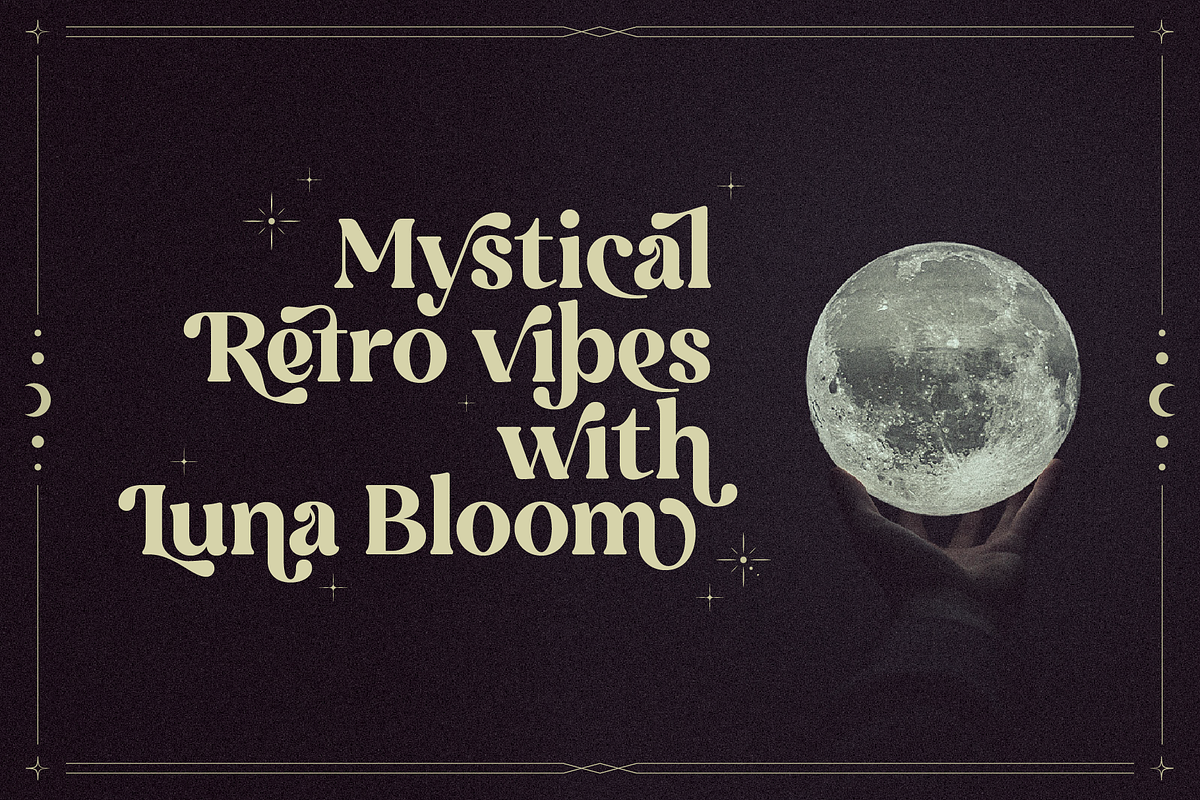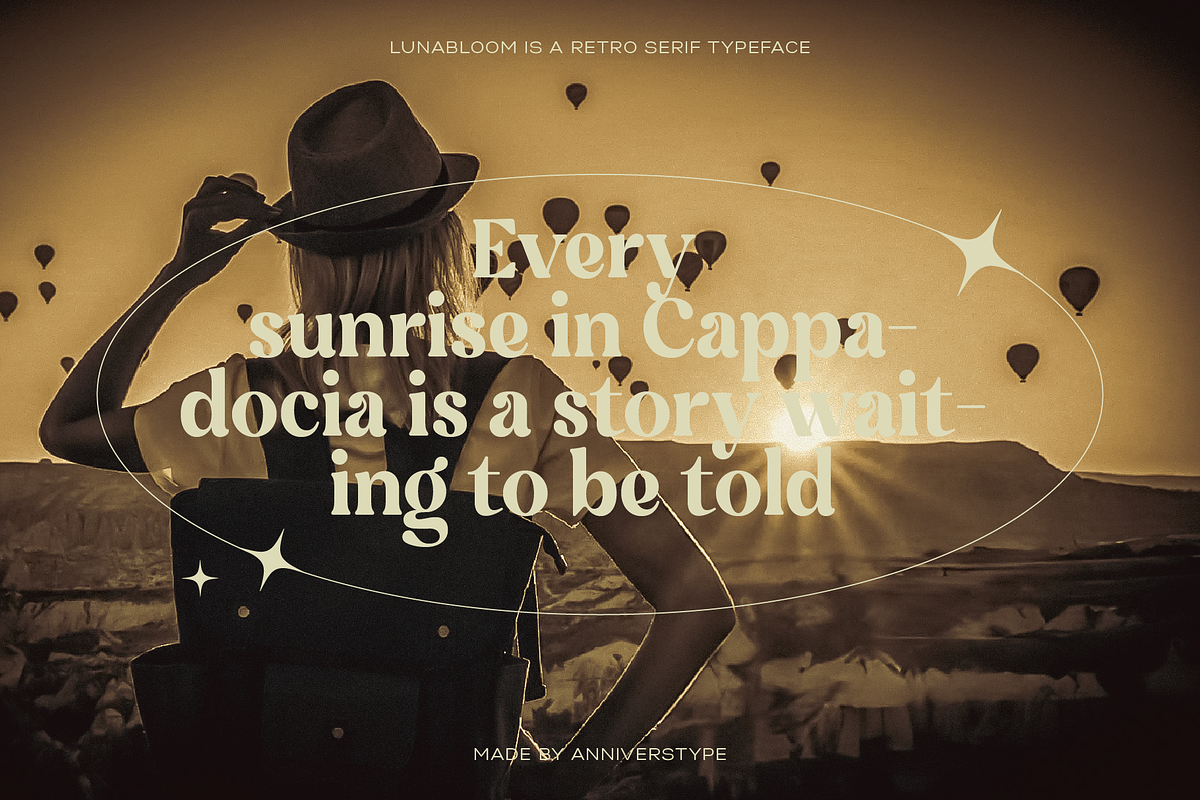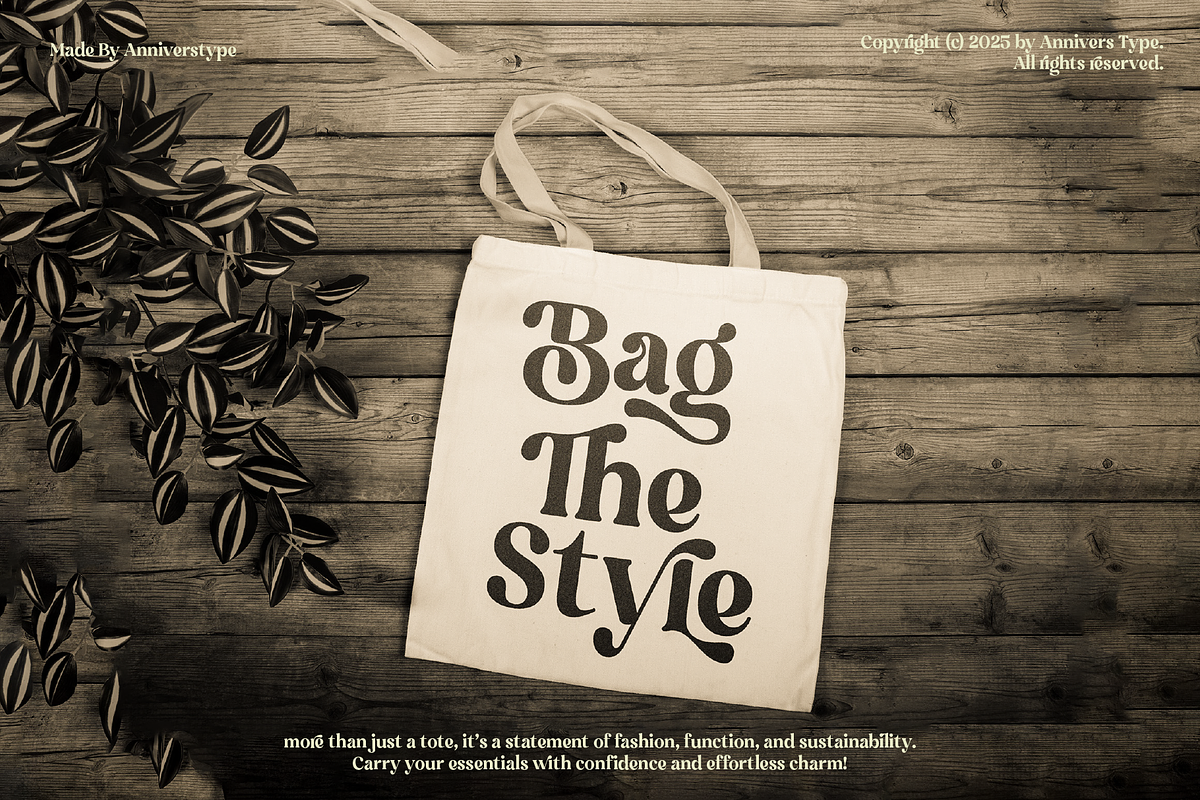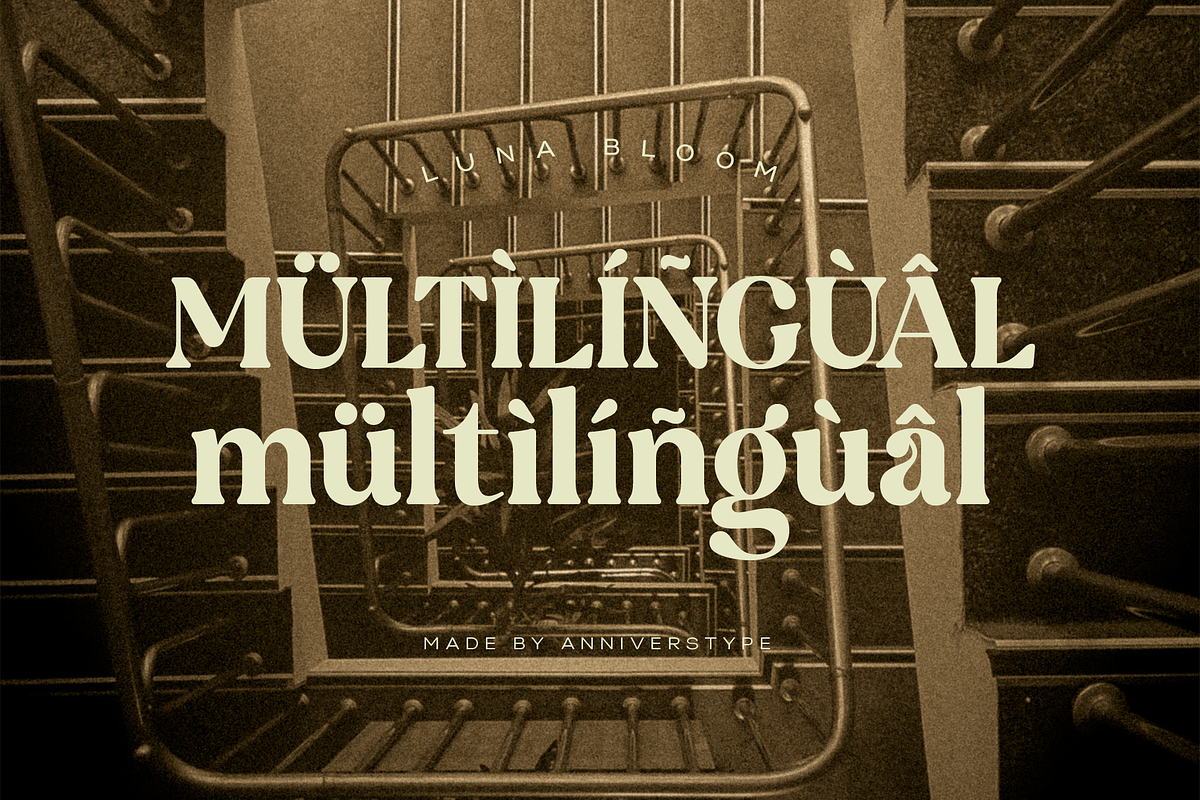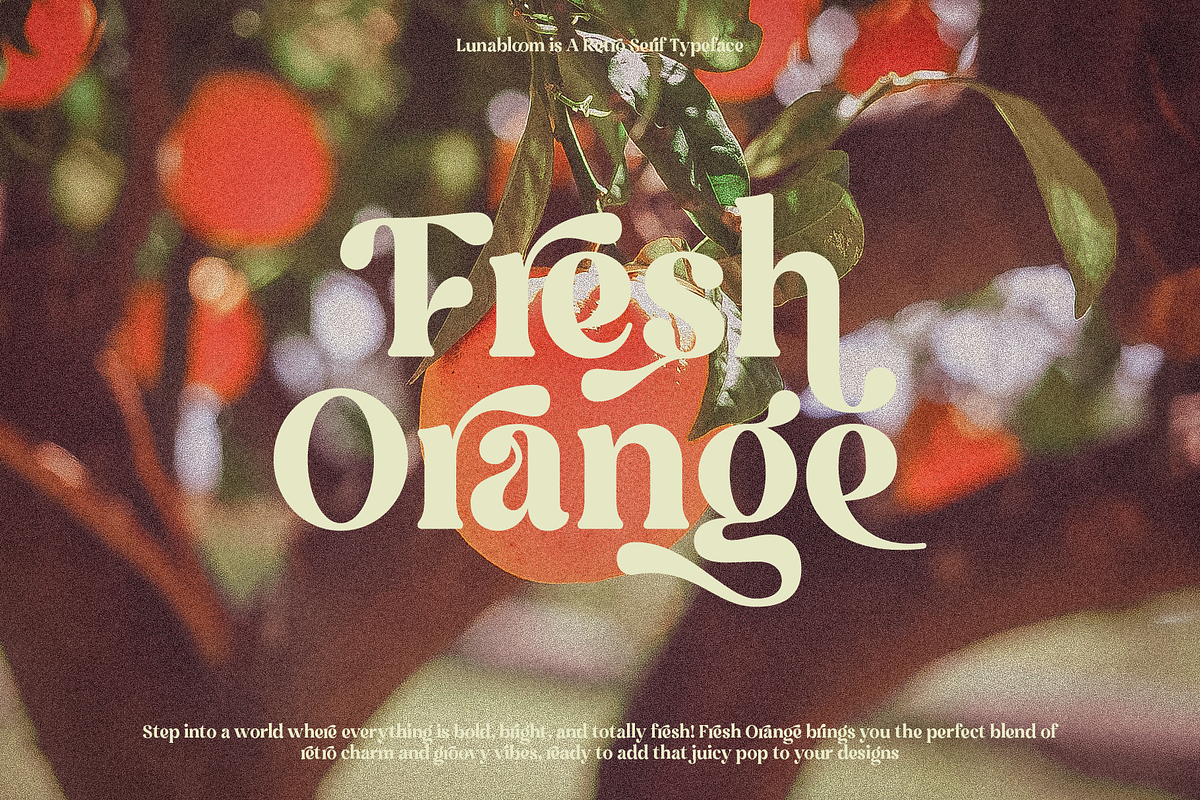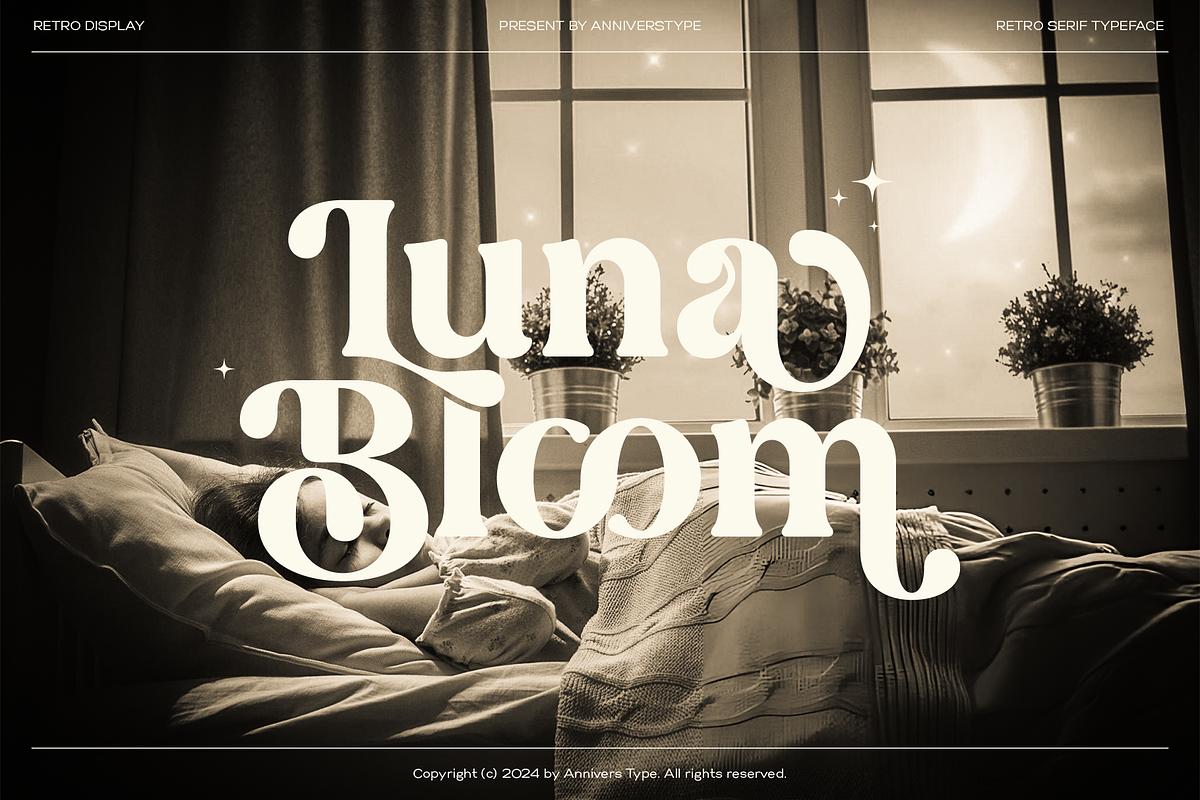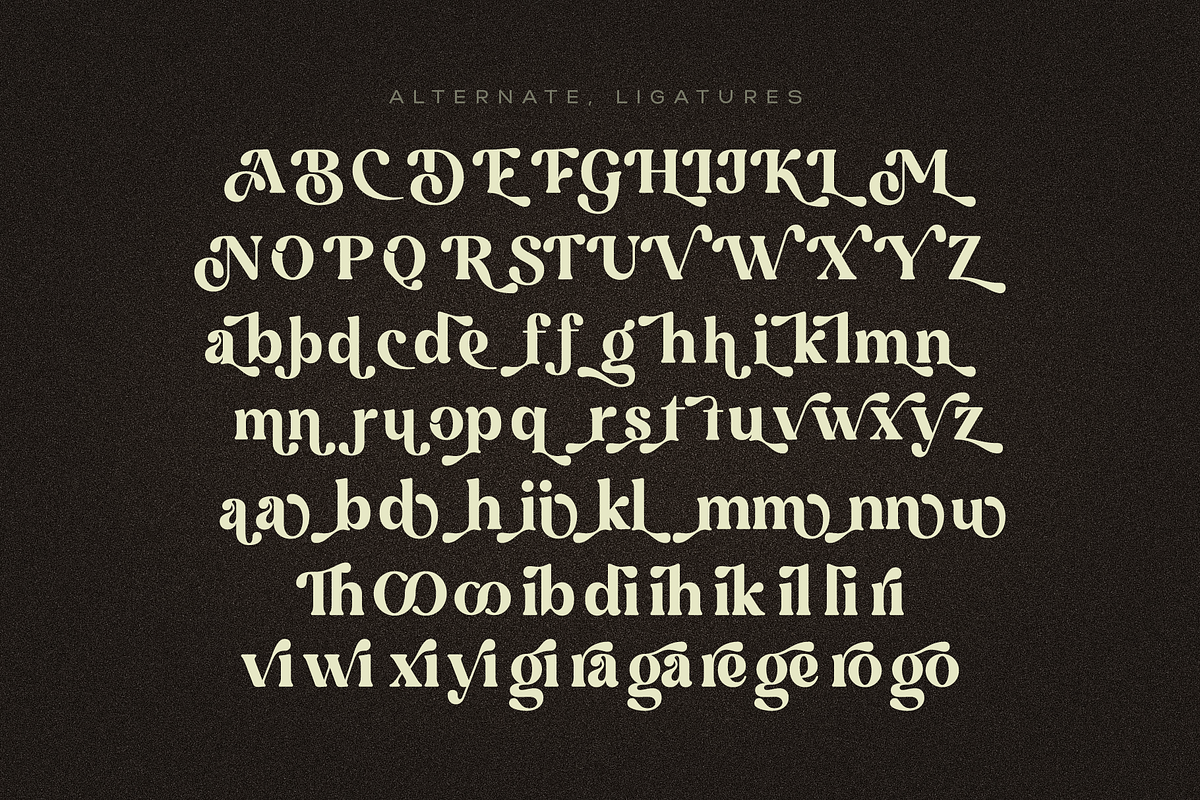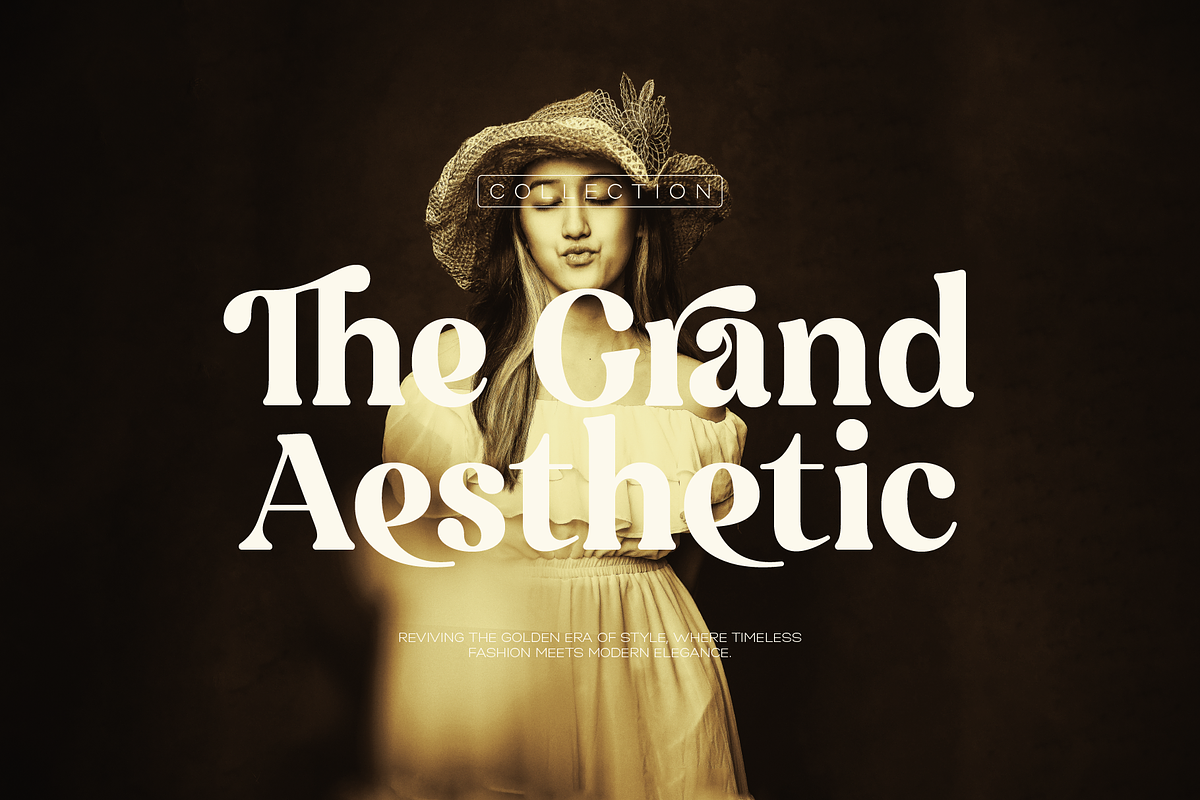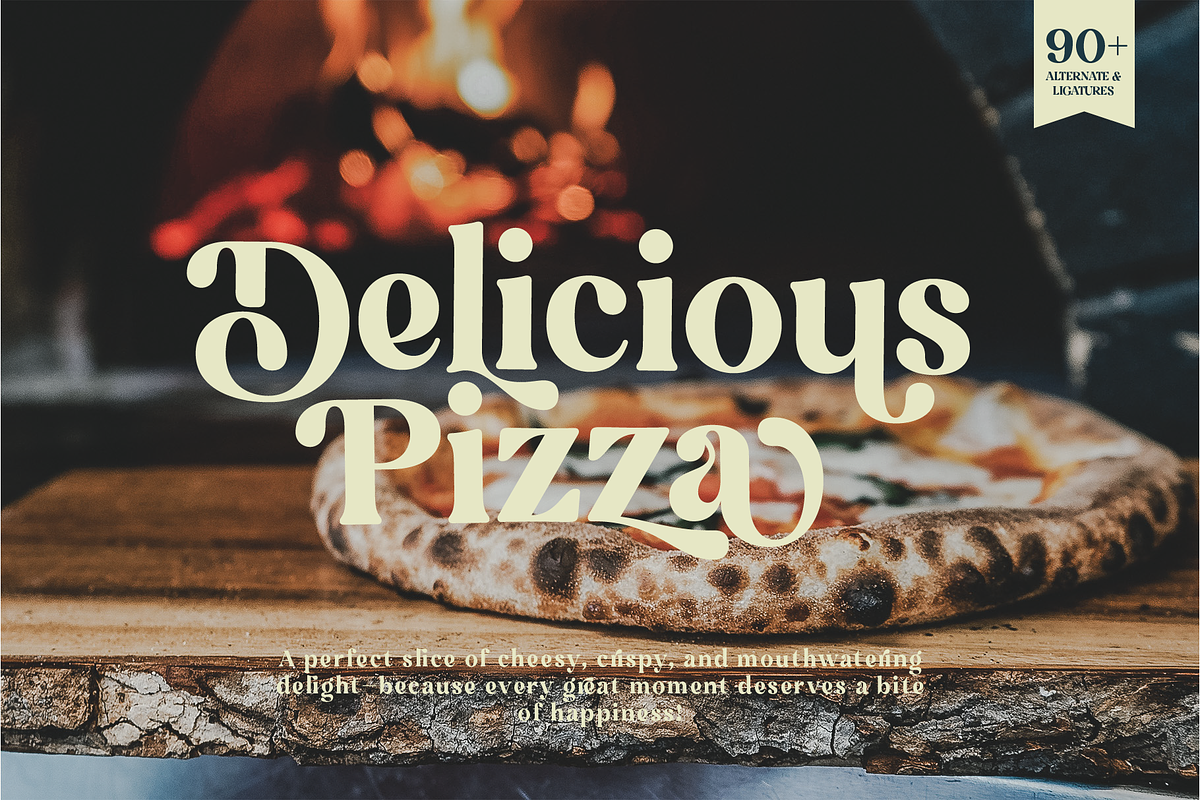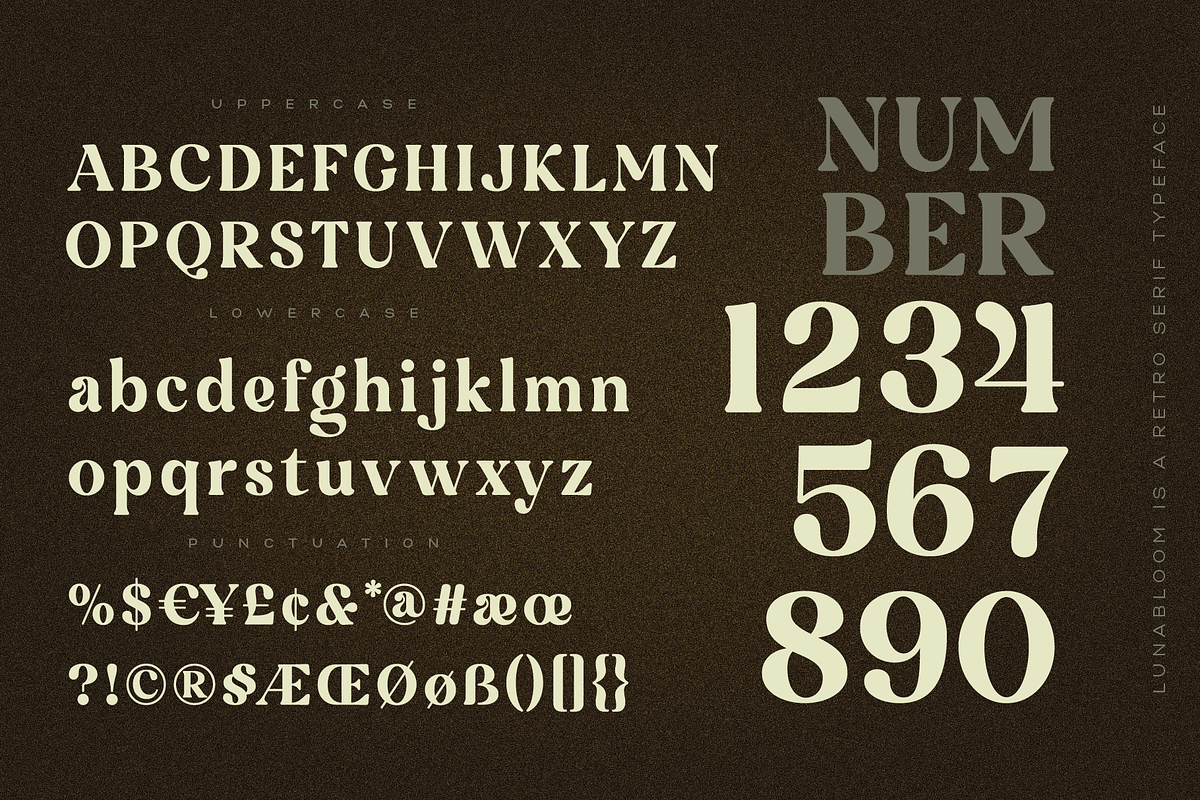
Luna Bloom - Classic Retro Vintage
Luna Bloom is a Retro Display font with a unique blend of vintage charm and modern versatility. Inspired by nostalgic typography, it features rounded edges, bold curves, and elegant ligatures, making it perfect for branding, posters, packaging, social media, and more. With its smooth yet expressive letterforms, Luna Bloom brings a timeless feel to any project, allowing you to create eye-catching designs effortlessly.
- uppercase and lowercase
- numerals and punctuation
- OpenType features (ligatures and alternates)